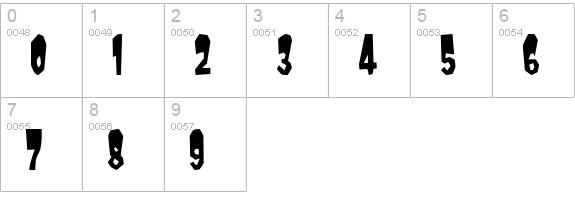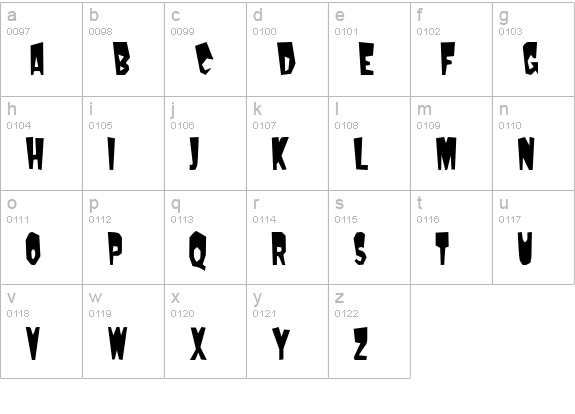
MondoCondensed Font Details
MondoCondensed font is a sleek and modern typeface that exudes sophistication and style. With its tall and narrow letterforms, this font is perfect for creating eye-catching headlines and bold statements. The condensed design allows for more text to fit in limited space without compromising readability. MondoCondensed is versatile and can be used in a variety of design projects, from branding to editorial layouts. Best of all, MondoCondensed font is available for free download at FontsMarket.com. This means you can easily add this unique typeface to your collection without any cost. Don't miss out on the opportunity to enhance your designs with the striking MondoCondensed font today!